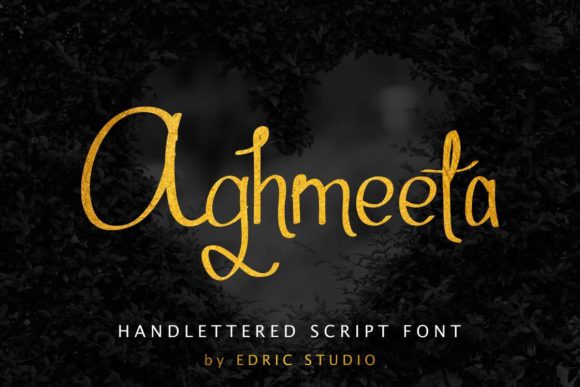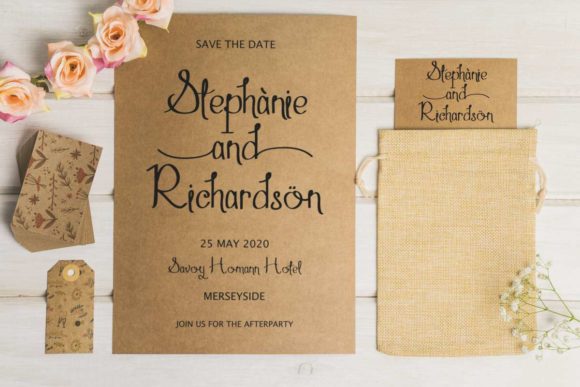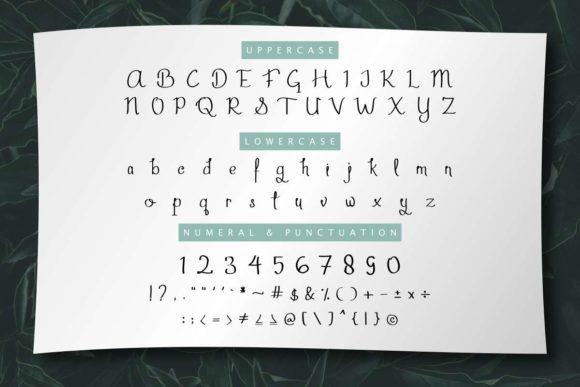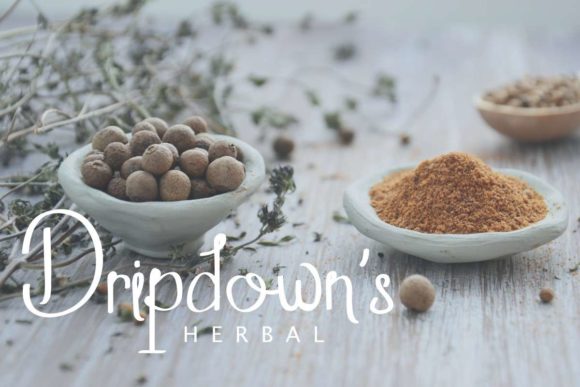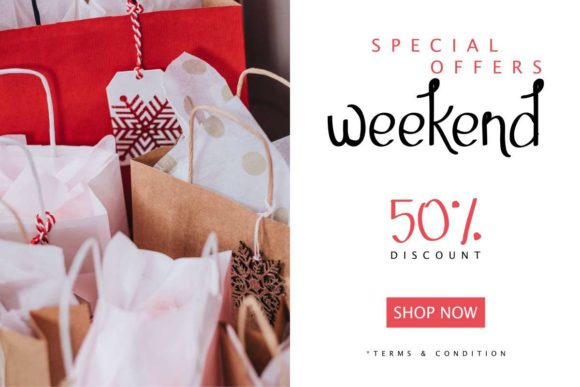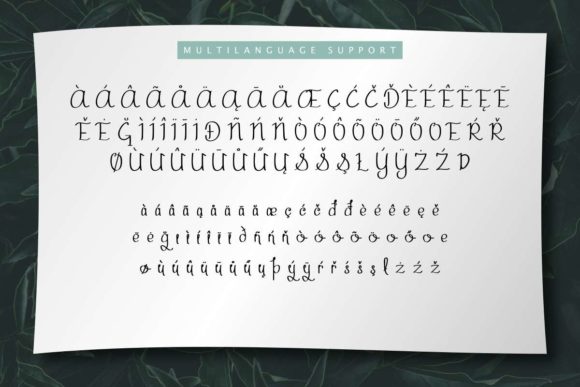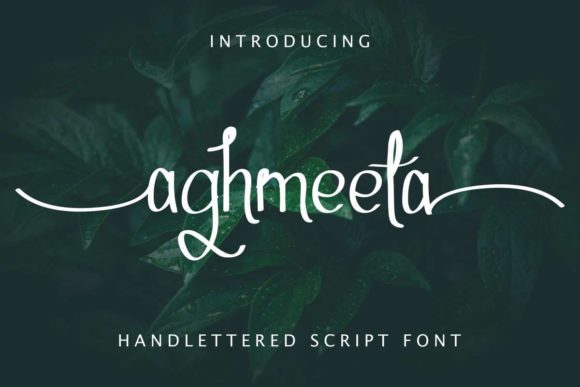
Discover the Charm of Aghmeeta Font: A Cute and Playful Script Font
Are you tired of using the same old fonts for your design projects? Look no further! Aghmeeta Font is here to ignite your creativity with its unique and adorable script. In this article, we’ll dive into the world of Aghmeeta Font, exploring its features, benefits, and uses. Whether you’re a designer, crafter, or simply a font enthusiast, you’ll love what Aghmeeta has to offer.
What is Aghmeeta Font?
Aghmeeta Font is a cute and playful script font that feels authentic and adorable. Its unique design makes it perfect for a variety of projects, from creative crafts to digital designs. With Aghmeeta, you can add a touch of personality to your work, making it stand out from the crowd.
Features of Aghmeeta Font
- Unique Script Design: Aghmeeta Font boasts a one-of-a-kind script design that’s both playful and elegant.
- Authentic Feel: The font’s authentic feel makes it perfect for projects that require a personal touch.
- Cute and Adorable: Aghmeeta Font is sure to capture the hearts of designers and crafters with its irresistible charm.
- Multipurpose: Use Aghmeeta Font for a wide range of projects, from digital designs to craft projects.
Benefits of Using Aghmeeta Font
So, why choose Aghmeeta Font for your next project? Here are just a few benefits you can expect:
- Adds Personality: Aghmeeta Font adds a touch of personality to your work, making it more engaging and memorable.
- Versatile: Use Aghmeeta Font for a variety of projects, from formal to informal designs.
- Easy to Read: Despite its playful design, Aghmeeta Font is easy to read, making it perfect for body text and headlines.
- Unique: Stand out from the crowd with Aghmeeta Font’s unique script design.
Uses of Aghmeeta Font
Aghmeeta Font is perfect for a wide range of projects, including:
- Digital Designs: Use Aghmeeta Font for social media graphics, blog posts, and website designs.
- Craft Projects: Add a personal touch to your craft projects, such as handmade cards, scrapbooking, and DIY decorations.
- Branding: Use Aghmeeta Font to create a unique brand identity for your business or personal project.
- Invitations: Make your invitations stand out with Aghmeeta Font’s playful and elegant design.
Tips for Using Aghmeeta Font
Here are a few tips to help you get the most out of Aghmeeta Font:
- Experiment with Colors: Try pairing Aghmeeta Font with different colors to create a unique look.
- Mix and Match: Combine Aghmeeta Font with other fonts to create a visually appealing design.
- Use for Headlines and Body Text: Aghmeeta Font is perfect for both headlines and body text, making it a versatile addition to your design toolkit.
Aghmeeta Font is a unique and adorable script font that’s sure to ignite your creativity. With its playful design, authentic feel, and versatility, Aghmeeta Font is perfect for designers, crafters, and font enthusiasts alike. Whether you’re looking to add a personal touch to your craft projects or create a unique brand identity, Aghmeeta Font is the perfect choice. So why wait? Discover the charm of Aghmeeta Font today and take your designs to the next level!